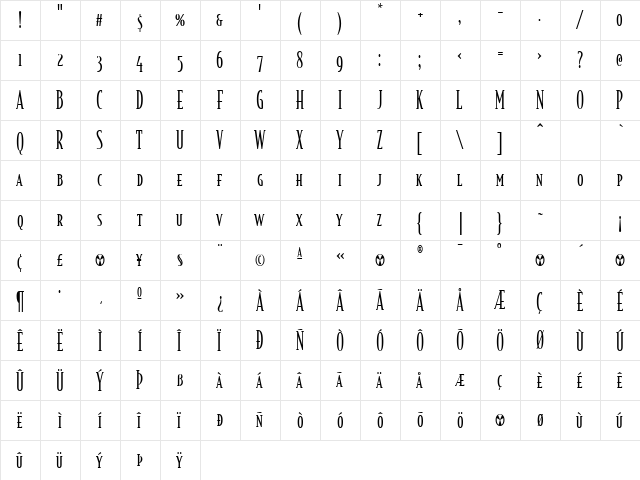
BodegaSerif LightSmallcaps
Design Context for BodegaSerif Typeface
BodegaSerif brings classic typographic sensibility to the table — its serifs and measured letterforms reflect centuries of print heritage. The delicate stroke weight brings airiness and refinement to layouts.
Pro Tip: Set BodegaSerif at slightly larger body copy sizes than you would a regular-weight serif to compensate for its delicate stroke contrast.